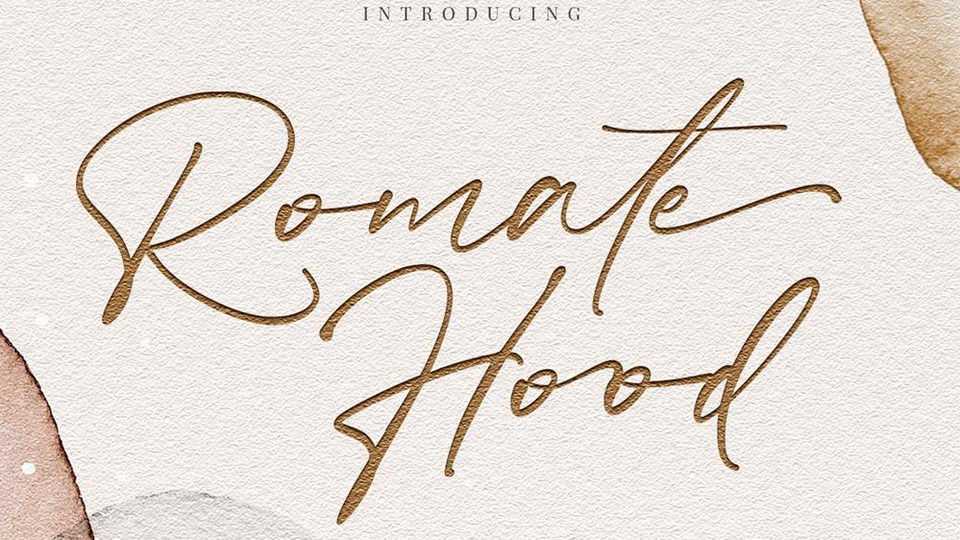
Download Romate Hood font, a minimalistic script with beautiful ligatures and alternates inspired by a luxury fashion. Romate Hood is a contemporary handwriting font ready to add unique look and bloom on your design.
Designer: Vultype Co